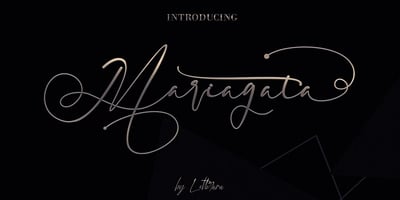
Mariagata Font Family was designed by Thomas Aradea and published by Letterara. Mariagata contains 1 styles and family package options. Inspired by modern caligraphy, Mariagata is a mixture of copper calligraphy with handlettering style. Designed to bring style elegance, sensual, glamorous, simple and very readable typeface.